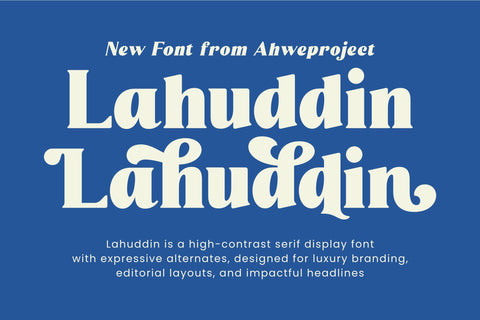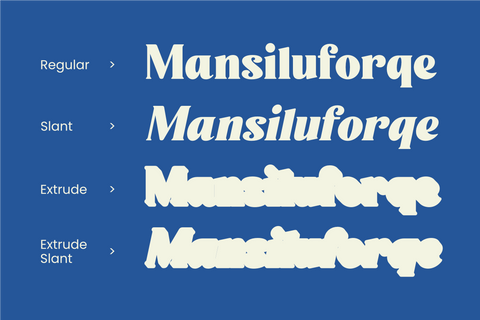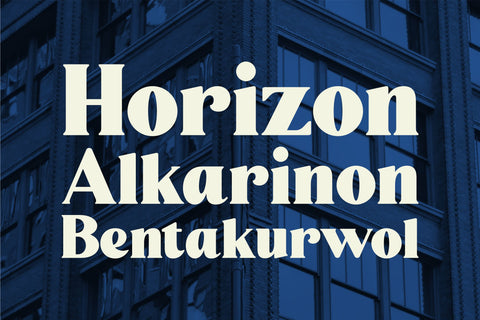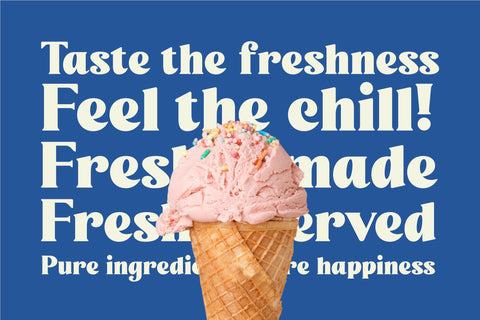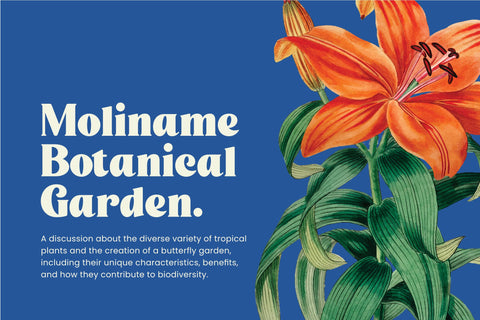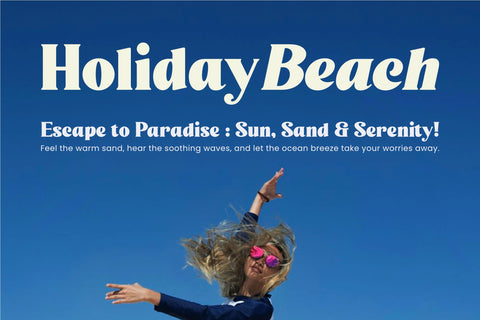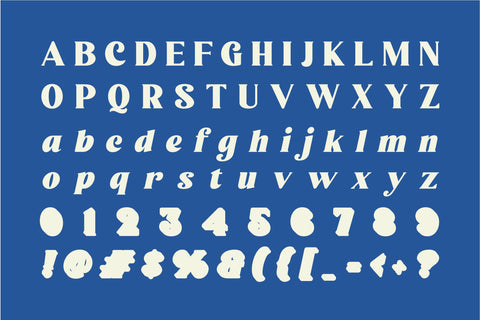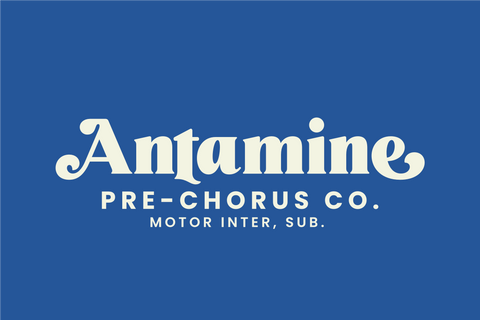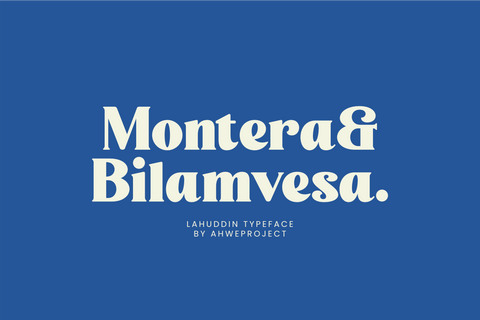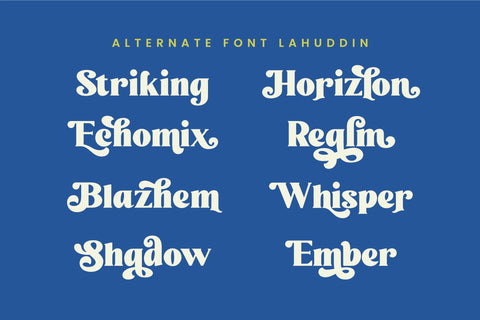
Lahuddin
Lahuddin is a high-contrast serif display font with expressive alternates that bring both elegance and boldness to your designs. Perfect for luxury branding, editorial layouts, standout headlines, logos, posters, and premium packaging.
With a design that blends classic charm and modern flair, Lahuddin delivers stunning typography for any creative project.